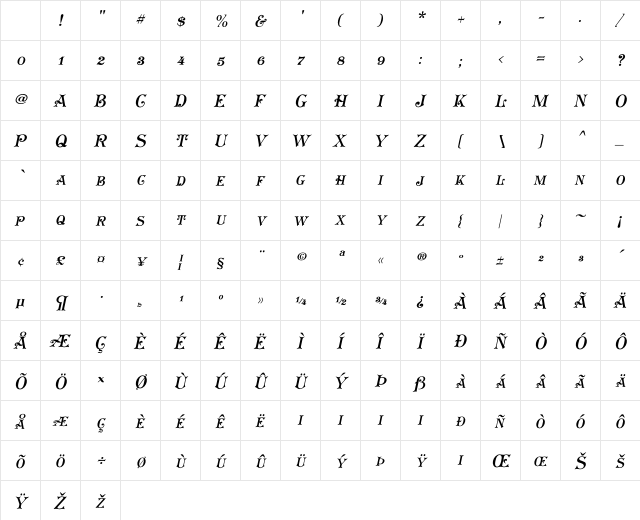
Complete Koster Plain Caps Oblique Regular glyph index. Displaying only characters natively supported by Koster Plain Caps Oblique Regular font.
Koster Plain Caps Oblique is a composed and adaptable typeface that performs quietly and consistently across a wide range of design contexts. The slanted form adds forward momentum and visual energy.
Pro Tip: Use Koster Plain Caps Oblique for emphasis, pull quotes, and subheadings where its slanted energy can add rhythm to the layout.